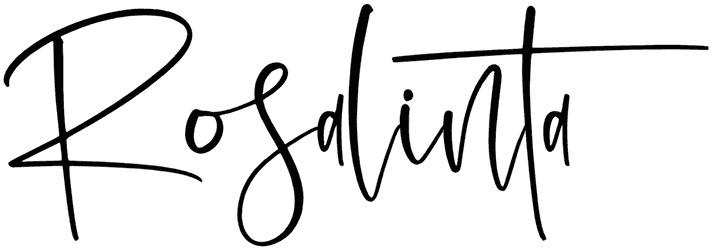
Rosalinta Font
Do you need an elegant handwritten font with a signature style? So use Rosalinta to stand out your design from the rest. It might be a bit illegible at first sight, but if you look carefully, it’s not anything to worry about.
This font comes with a complete set of neat characters and gives off a professional, modern impression in a unique way. It’s the best choice for wedding invitations, taglines, photography, watermarks, and branding purposes.